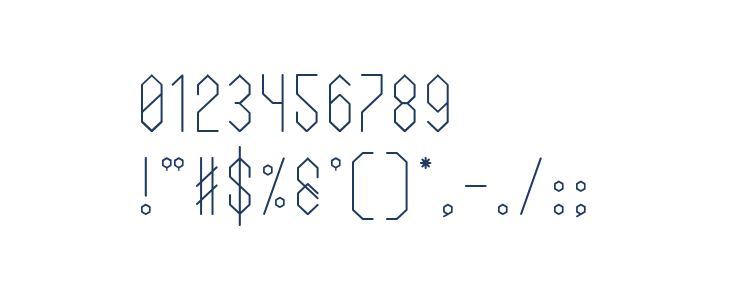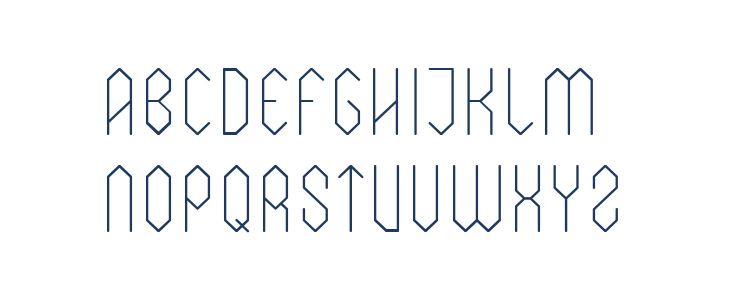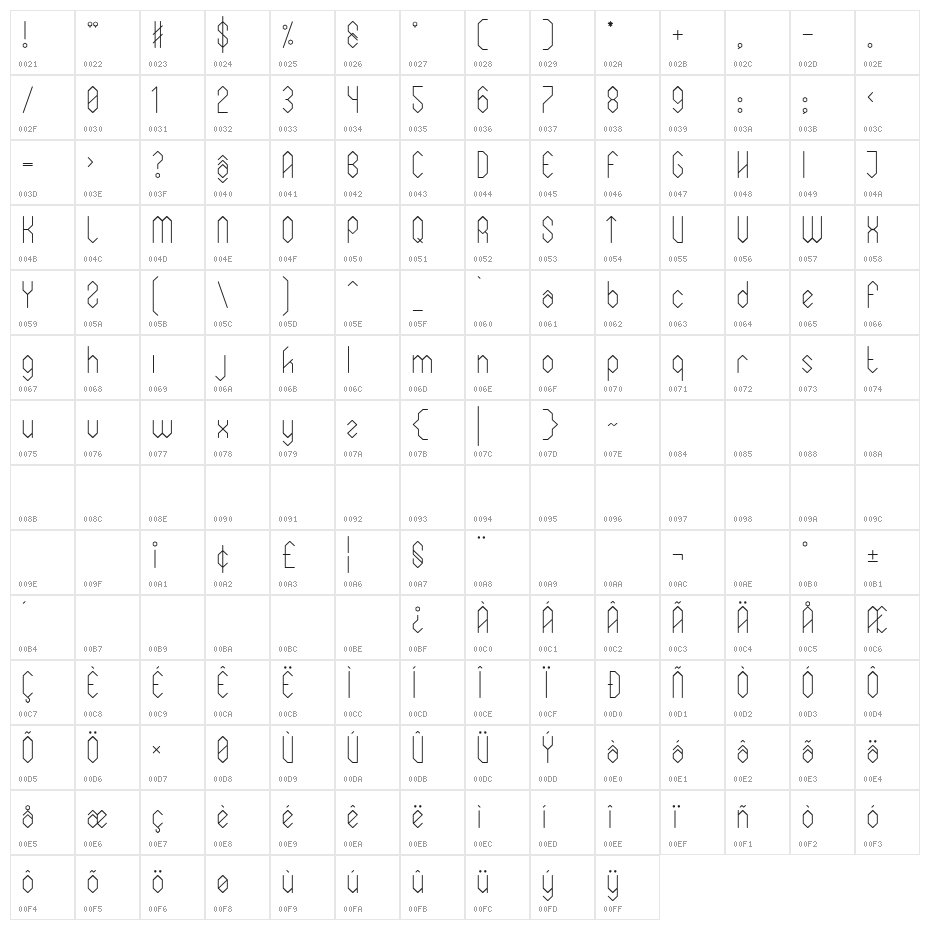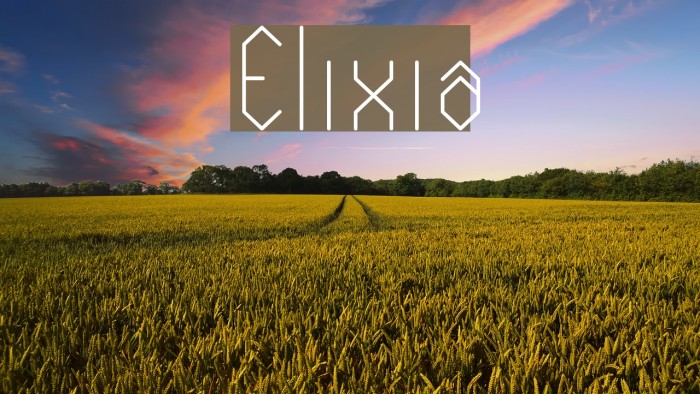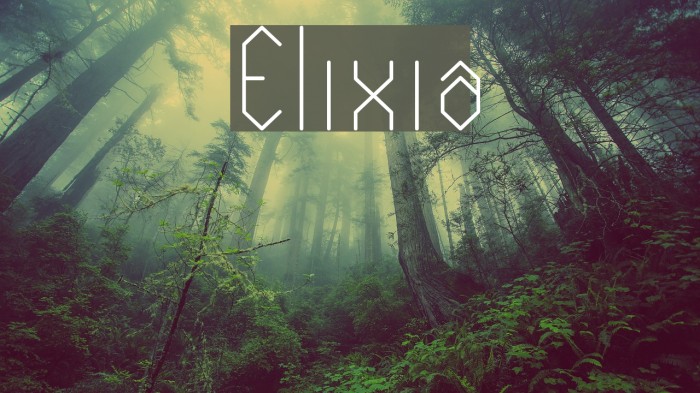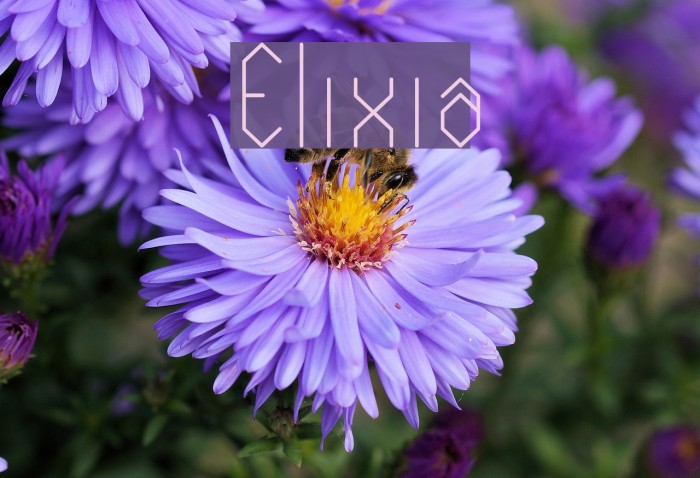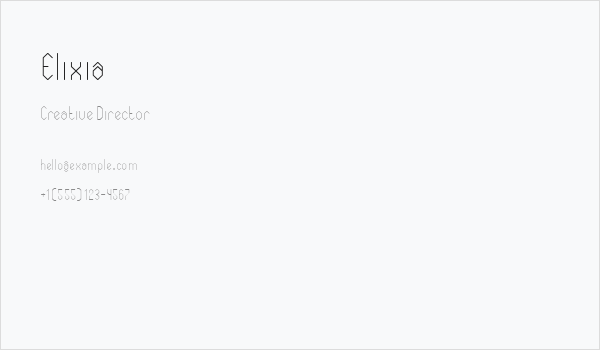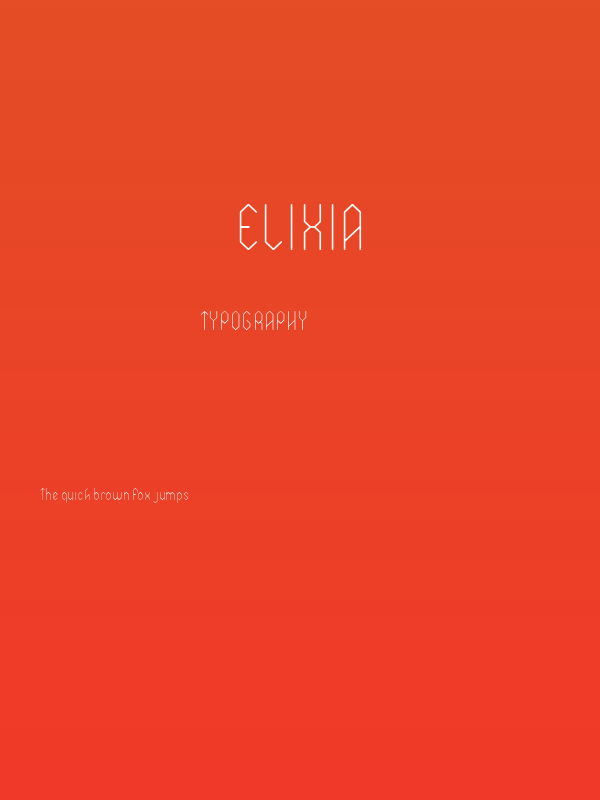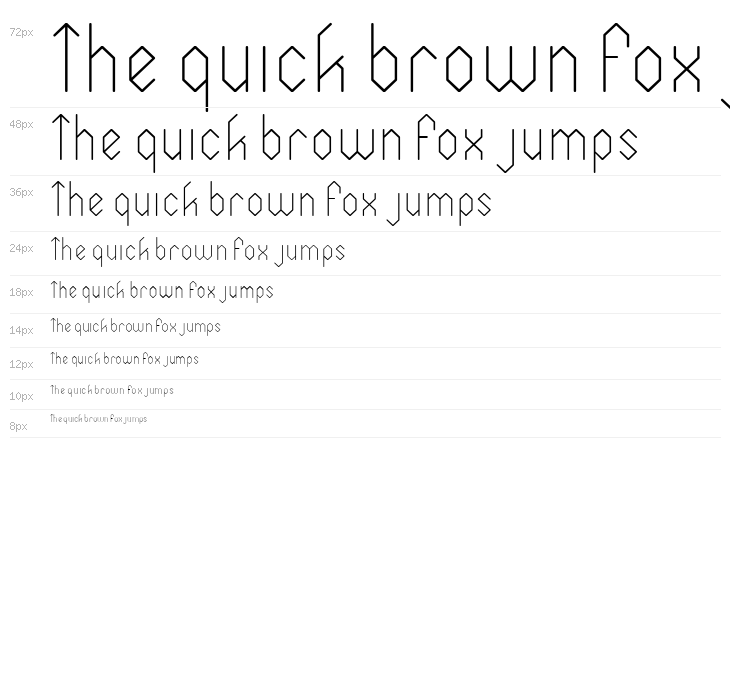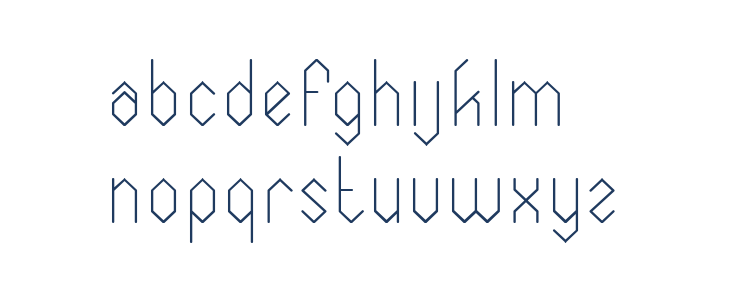
Elixia Font
Elixia Description
This font features a geometric and minimalist design with a futuristic flair. The characters are constructed with straight lines and sharp angles, giving it a distinctive, modern appearance. The uppercase and lowercase letters maintain a consistent height, contributing to a uniform look. The numerals and special characters follow the same angular style, ensuring cohesion across all elements. The font's simplicity and clarity make it suitable for digital interfaces and modern branding projects.
Use CaseLogos, Headlines, Digital interfaces
Proposed ProjectsIdeal for tech branding, digital interfaces, modern posters, and futuristic-themed designs.